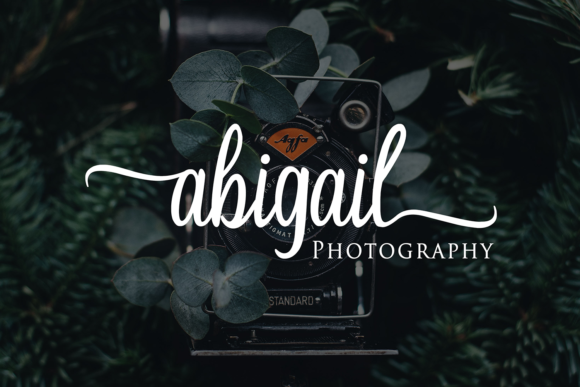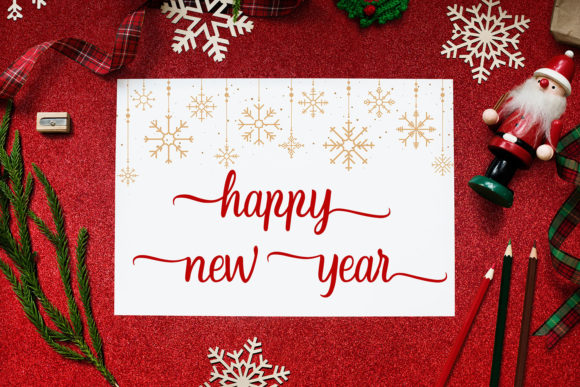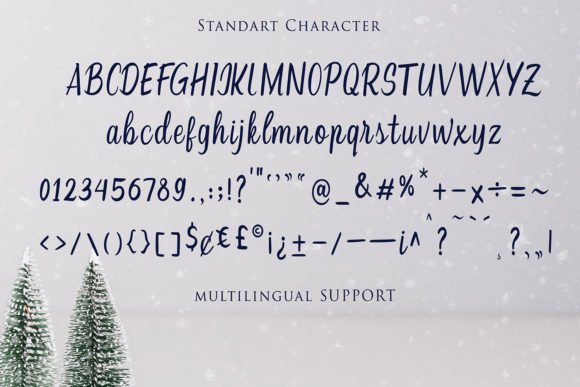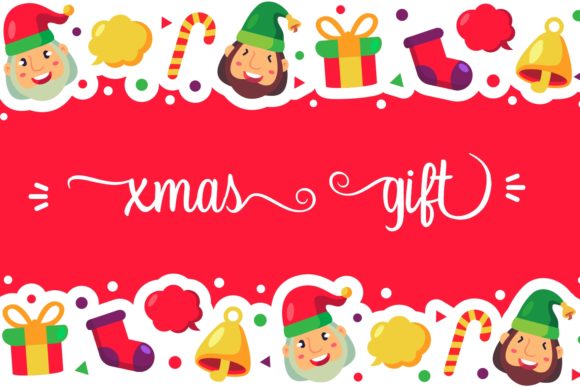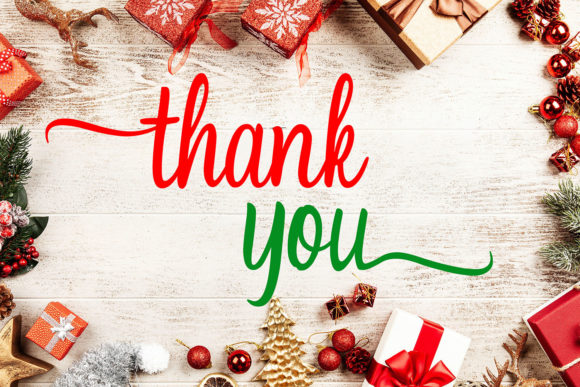
Christmas Font
Christmas is a modern and flowing handwritten font. It is PUA encoded which means you can access all of the glyphs and swashes with ease! It features a varying baseline, smooth lines, gorgeous glyphs and stunning alternates. Fall in love with its incredibly versatile style and use it to create spectacular designs!